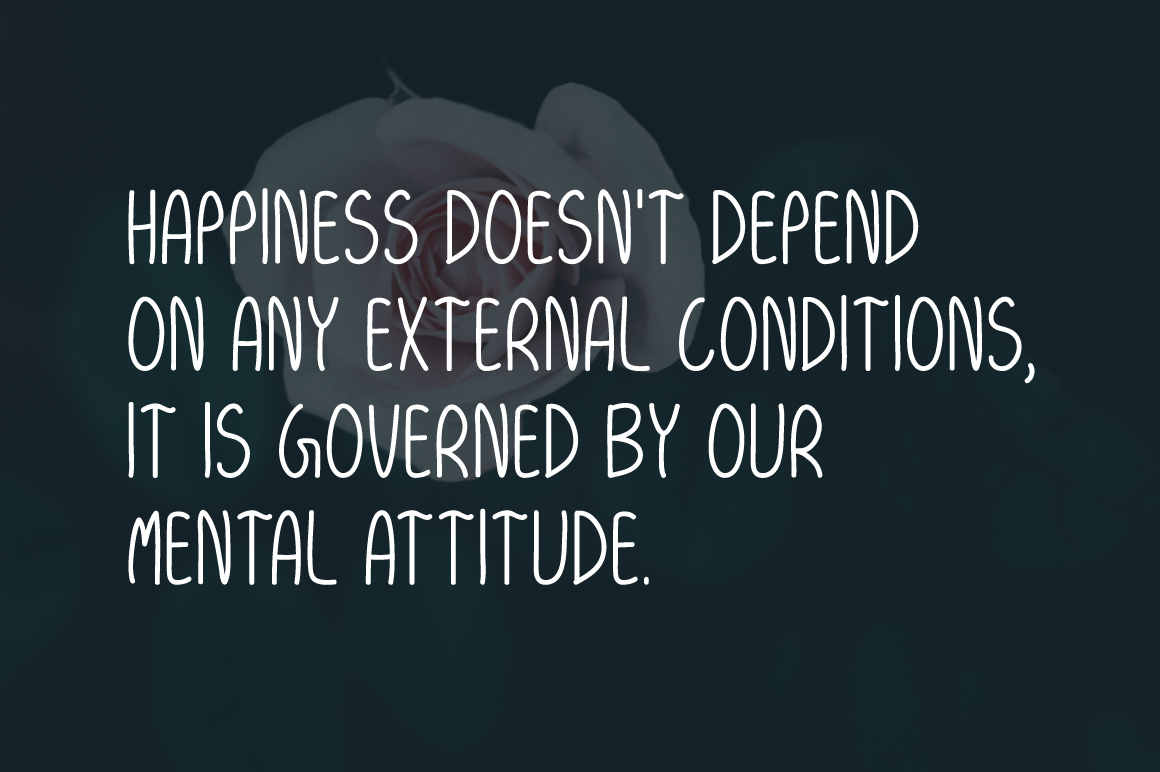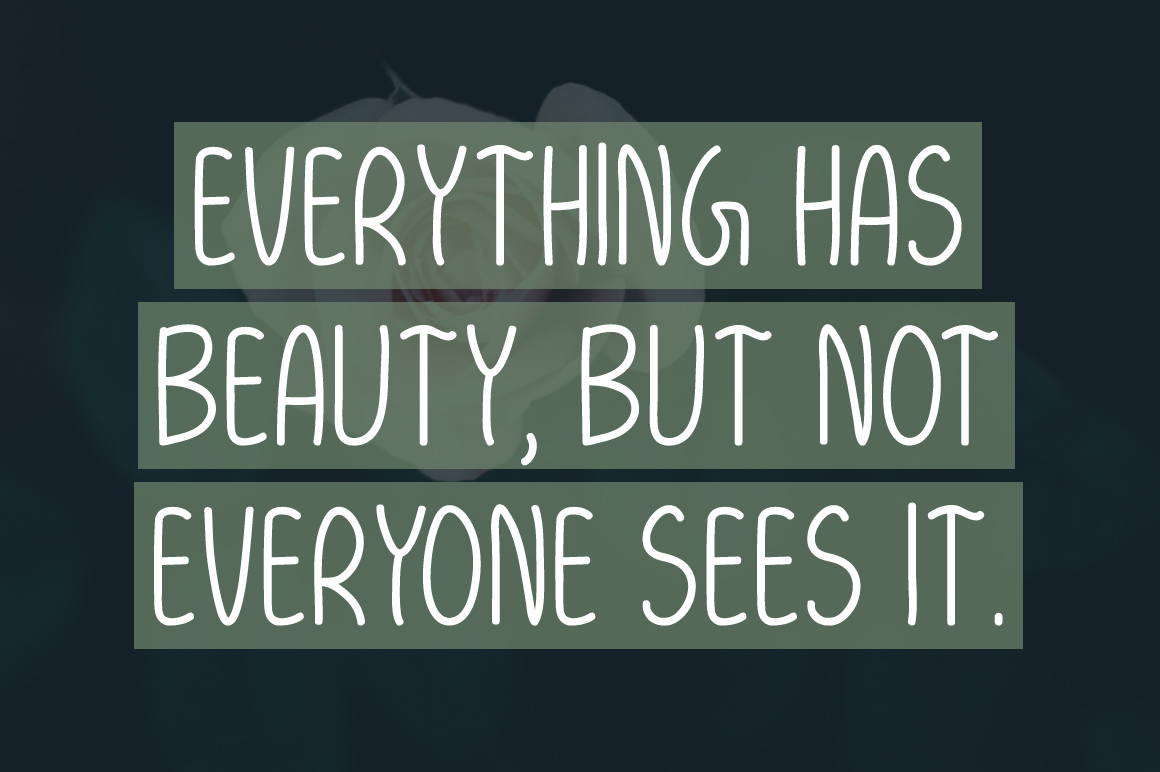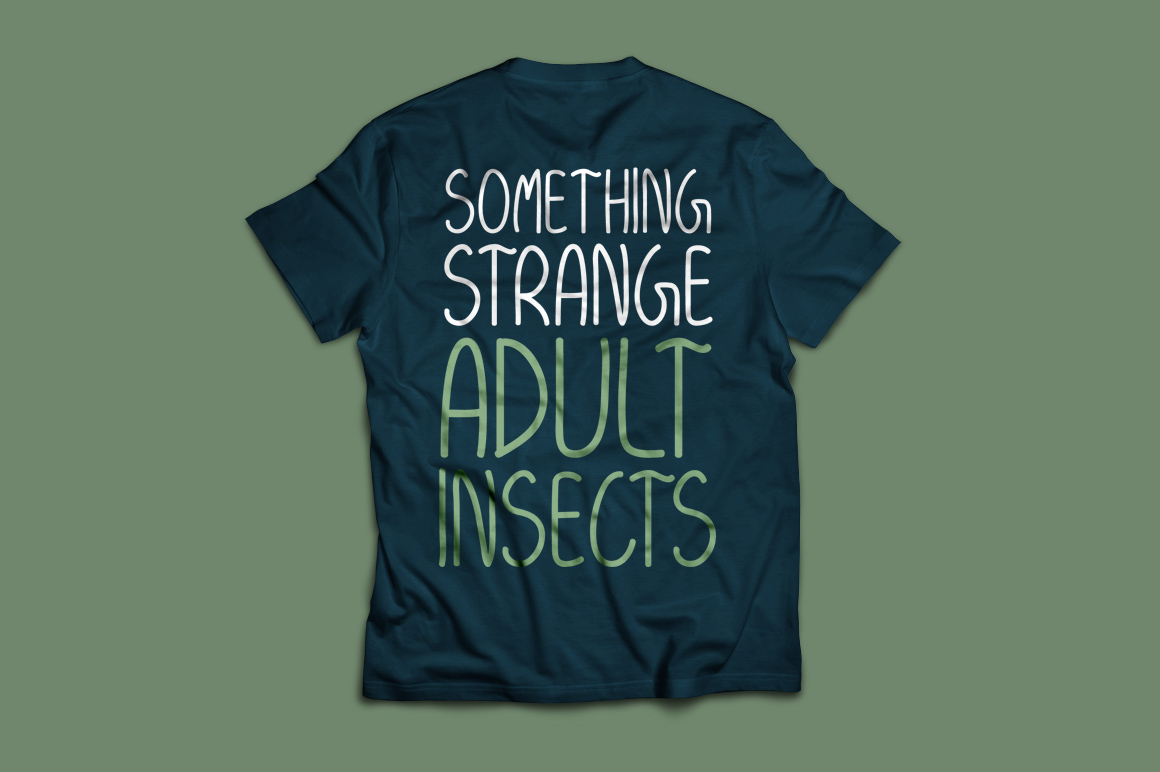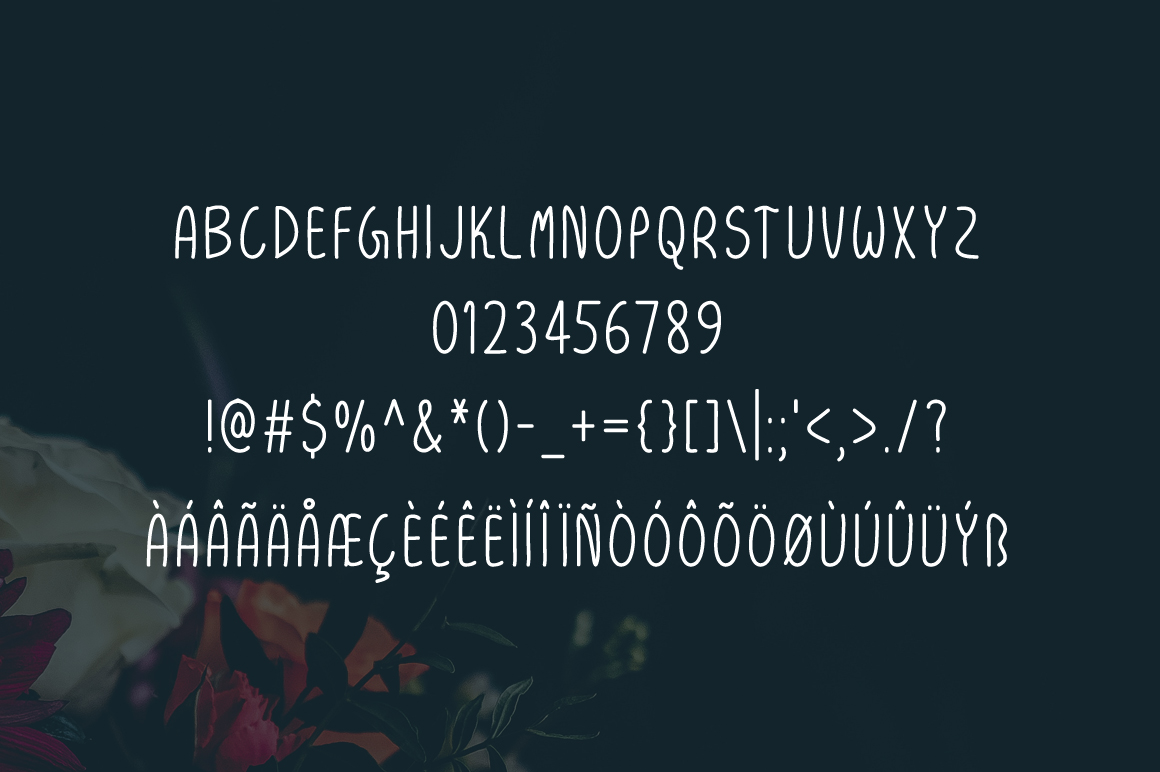
Introduction to Rishima Light Font Font
Fonts play a crucial role in design, and the Rishima Light Font font is a typeface that brings both character and versatility to any project. Whether you’re working on a branding project, a website, or a print design, the Rishima Light Font font offers a unique style that can elevate your work.
Rishima Light is a gorgeous and subtle handwritten font, suitable for sleek designs and darker palettes.
Rishima Light works well as a display, and can add a handcrafted charm to your designs .
Key Features of Rishima Light Font Font
Why Choose Rishima Light Font Font?
The Rishima Light Font font is more than just a typeface – it’s a design tool that helps you communicate your message with style and clarity. Its unique character set and versatile design make it suitable for a wide range of applications, from elegant invitations to bold headlines.
With its carefully crafted letterforms and balanced proportions, the Rishima Light Font font ensures readability and visual appeal across all mediums.
What makes Rishima Light Font font special?
The Rishima Light Font font stands out with its unique design, exceptional readability, and versatility across various design applications.